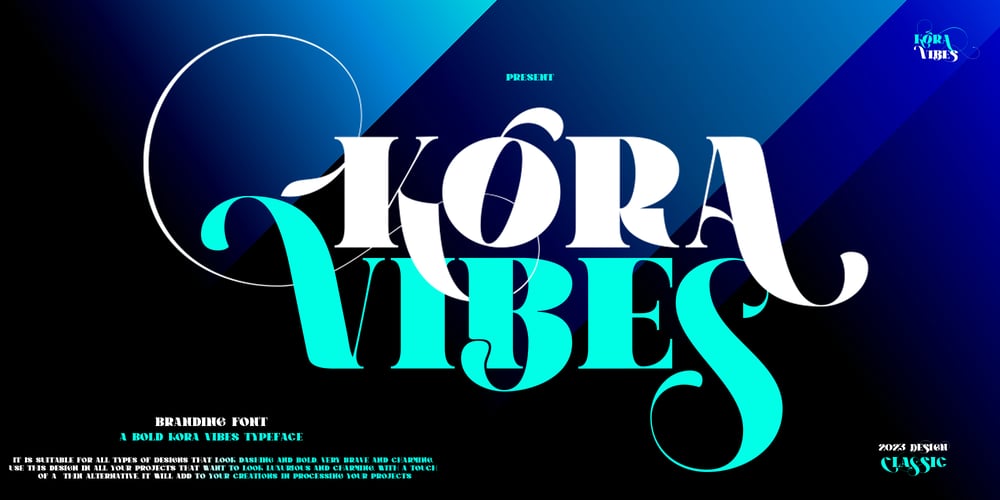
Kora Vibes
Kora Vibes font
Kora Vibes Font Family was designed by Ibram Syah and published by Jehansyah. Kora Vibes contains 1 styles and family package options. Kora Vibes is an elegant and modern serif font with a luxurious feel. Perfect for any title or large font, emails, magazines, book titles, movies, notes, brands, logos and more.This font is PUA coded, which means you can easily access all the glyphs and swashes!